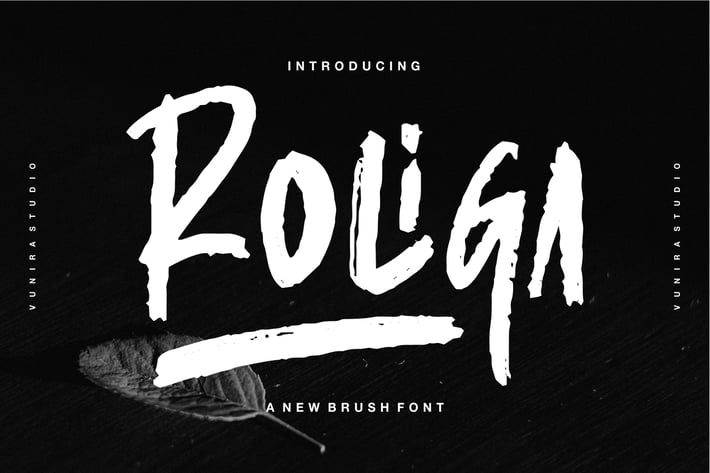
Roliga | A New Brush Font
Roliga | A New Brush Font with a calligraphy style, So beautiful on invitation like greeting cards, branding materials, business cards, quotes, posters, and more!